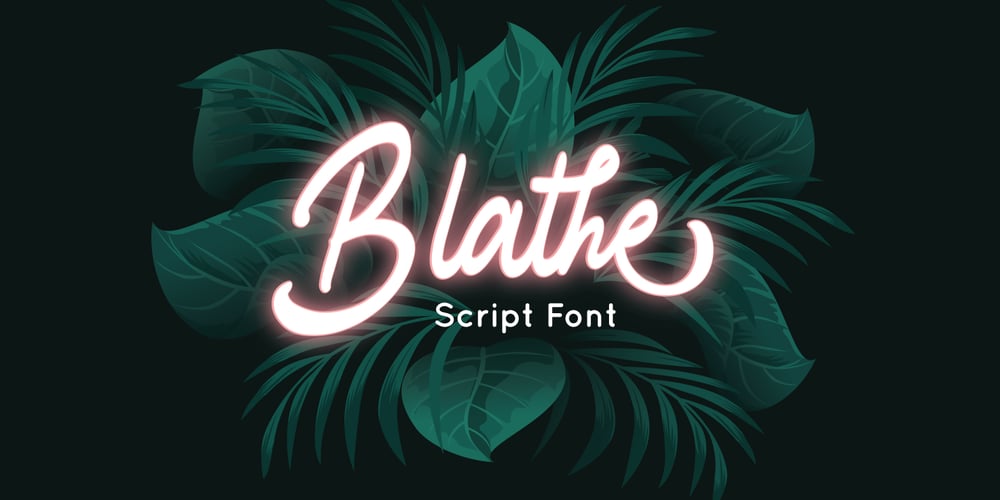
Blathe Font Family was designed by Fadli Ramadhan Iskandar and published by Attype Studio. Blathe contains 1 styles and family package options. Blathe is a Modern Script Font. Perfect font for business brand. Combine Blathe stylistic set to create amazing script font!Fall in love with its incredibly versatile style and use it to create spectacular designs!Blathe is perfect for branding, logo, invitation, quotes, wedding invitation, cricut font, silhouette font, product packaging, merchandise, game titles, cute style design, Book/Cover Title and more.What’s Included :- Ligatures- Multilingual Support —Hope you enjoy with our font!Attype Studio